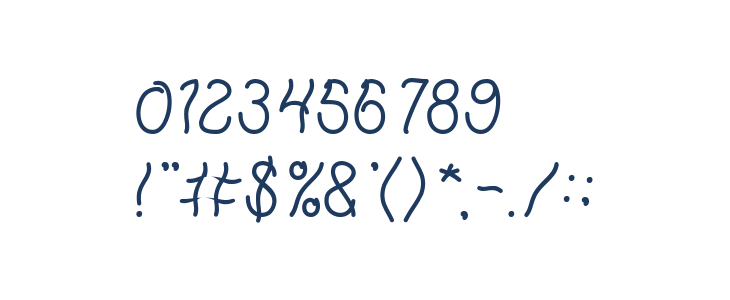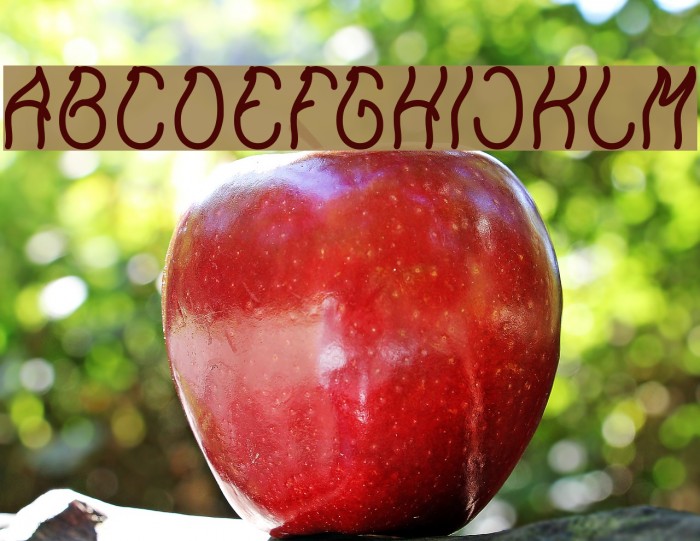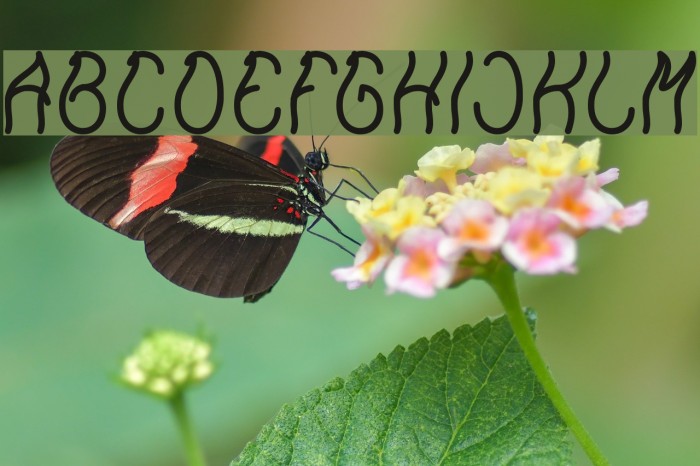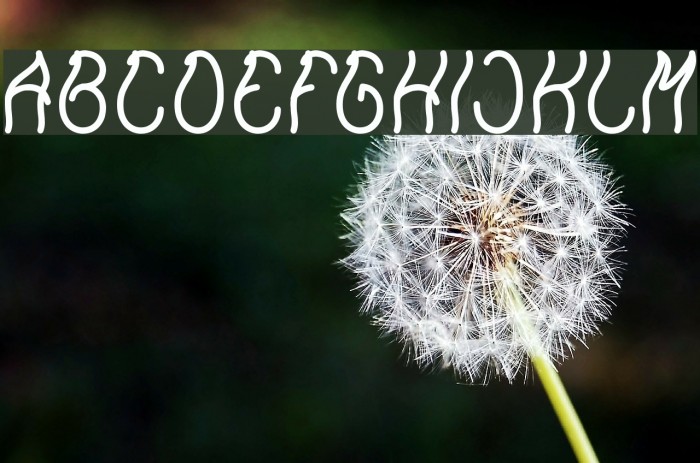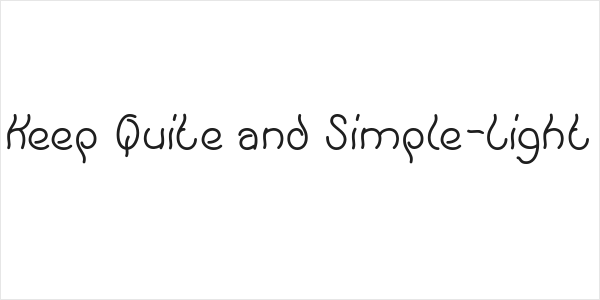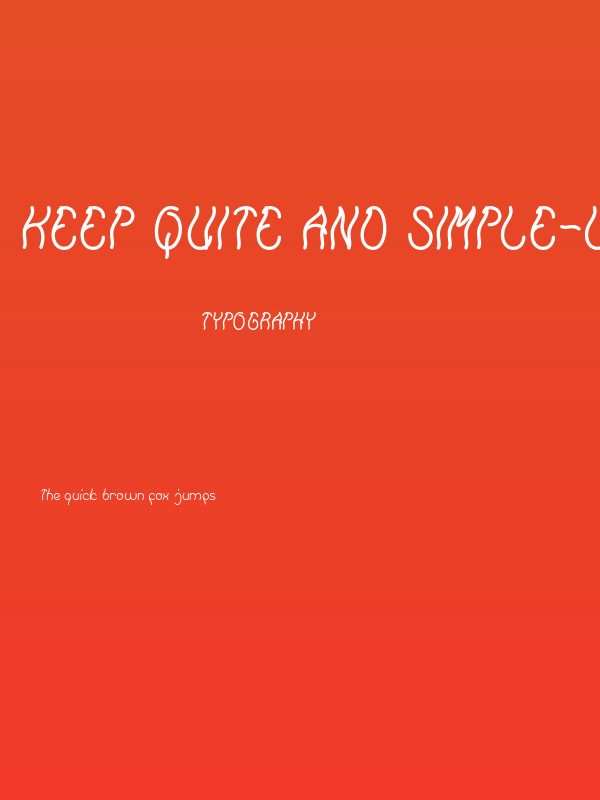
Keep Quite and Simple-Light Font
Keep Quite and Simple-Light Description
This font features a playful and whimsical style, characterized by its curvy and fluid letterforms. The strokes are consistent in thickness, giving it a uniform appearance. The characters have a hand-drawn quality, with rounded edges and a slightly irregular baseline, adding to its charm. The uppercase and lowercase letters maintain a cohesive look, while the numerals and special characters complement the overall design. This font exudes a casual and friendly vibe, making it suitable for creative and informal applications.
| Proposed Projects | Ideal for children's books, greeting cards, playful branding, and creative posters. |